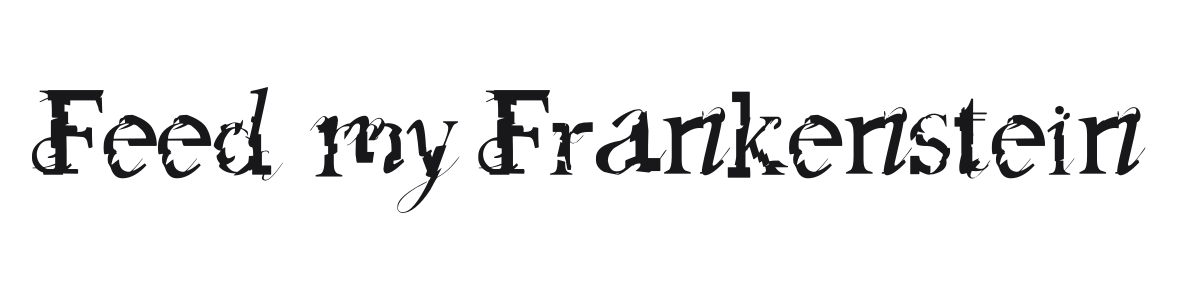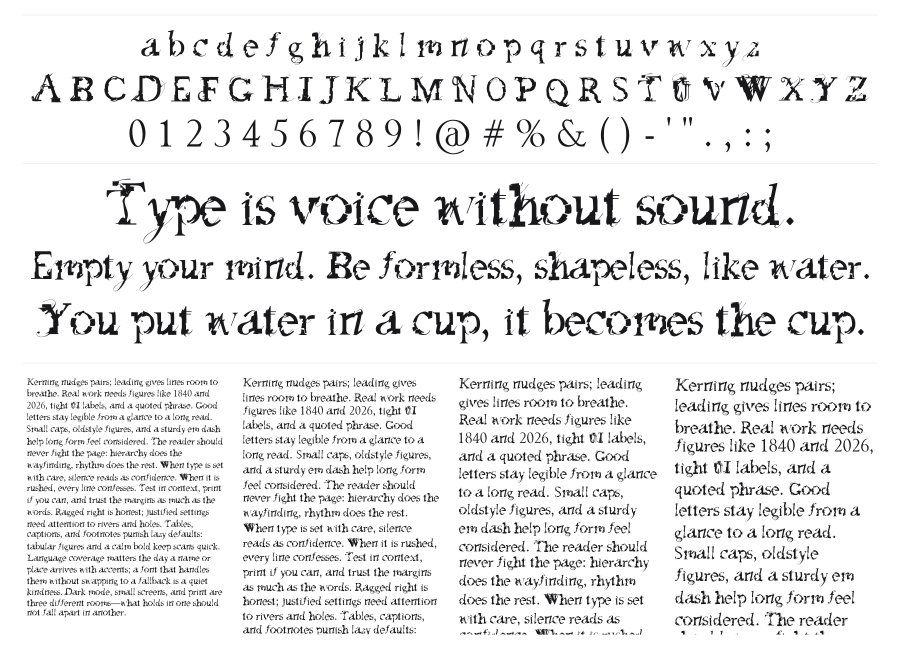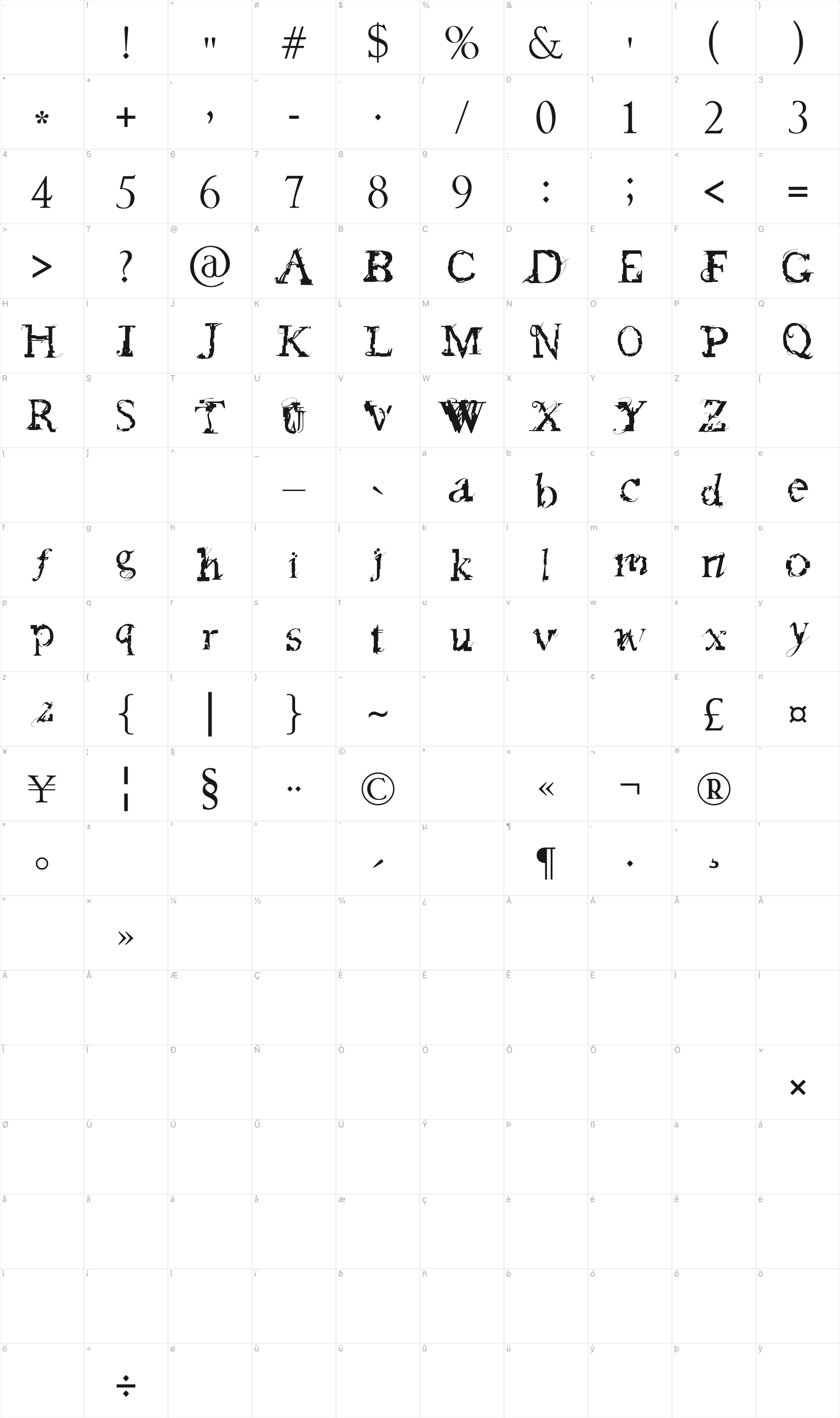
Feed my Frankenstein
Feed my Frankenstein is a grungy, horror-leaning display face by Will Haun with letterforms that look corroded and unstable, like text pulled from a weathered headstone or old monster movie lobby card. The distressed edges and uneven weight give it a genuinely spooky, unsettling character that fits right in on Halloween flyers, horror posters, and dark-themed branding. Keep it big and keep it brief, since the rough texture loses its impact at smaller sizes.